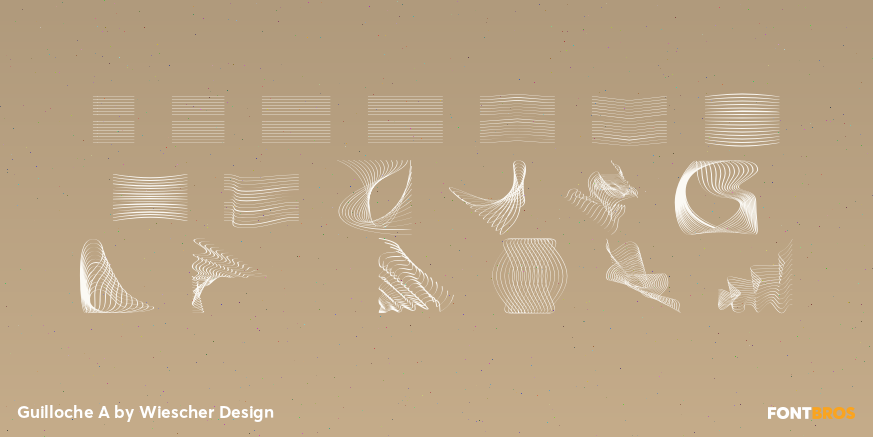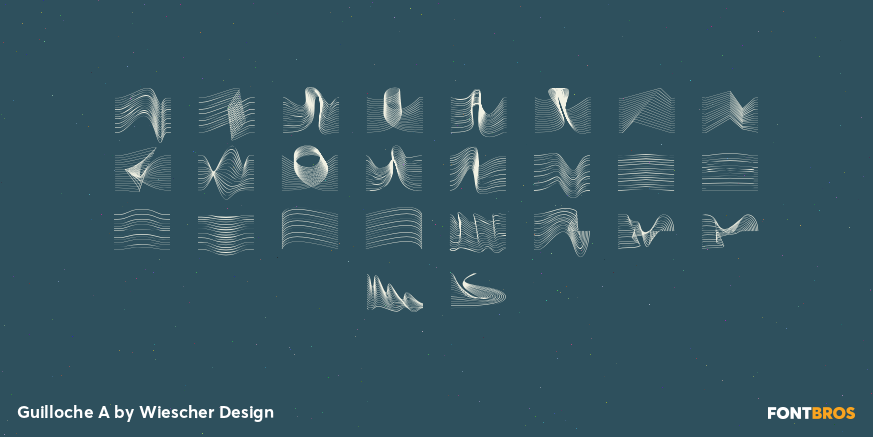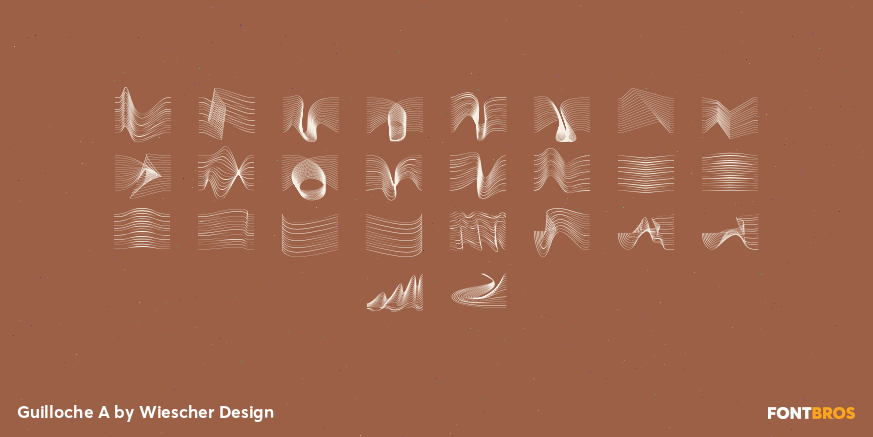
Guilloche A
Font Family by Wiescher Design
Guilloches were ? in the old days ? used to make the falsification of banknotes more difficult. The engraving of these intricate lines was done by a highly specialized mechanical machine, which was operated by an equally highly specialized engraving artist. Once the settings for a specific curve were changed back to zero it was very difficult, if not impossible to set them back to the old design.
I have designed a useful set of Guilloches that join to form ribbons that create a kind of op-art 3d effect. Under the keys A-U and a-u you find joining pieces. Under the keys V-Z and v-z I placed start- and endpieces. 0-4 are different lenght straight extensions and 5-9 are not quite so straight extensions. All other keys are corner pieces that can be used as stand-alones or put in rows to make for superb decoration.
With a little bit of experimentation and maybe colored overlays you can achieve super-phantastic designs.